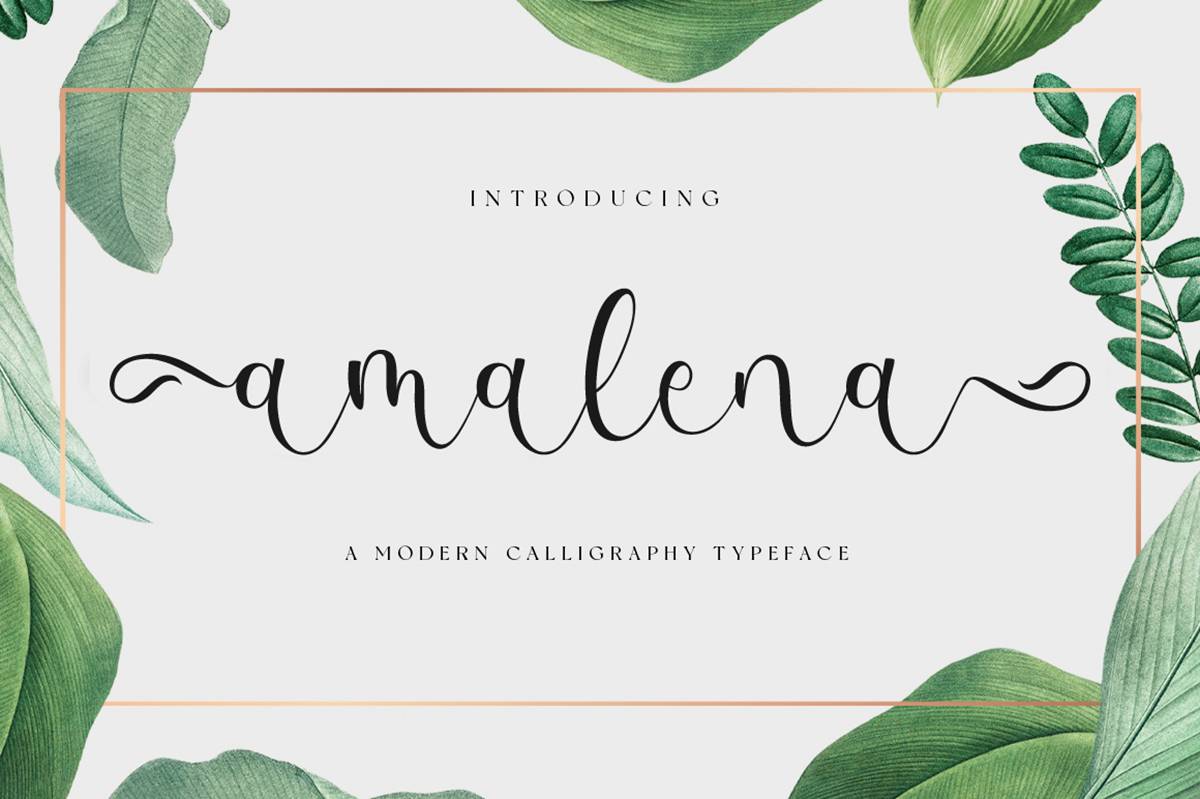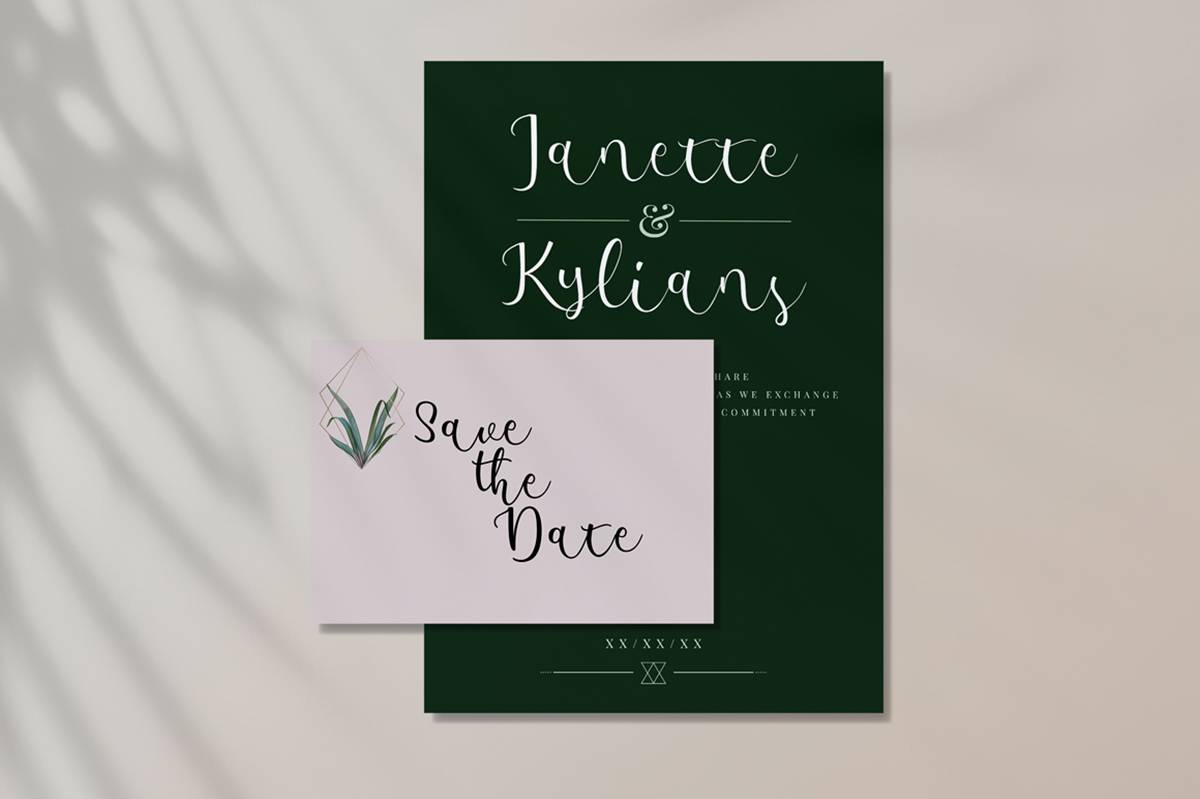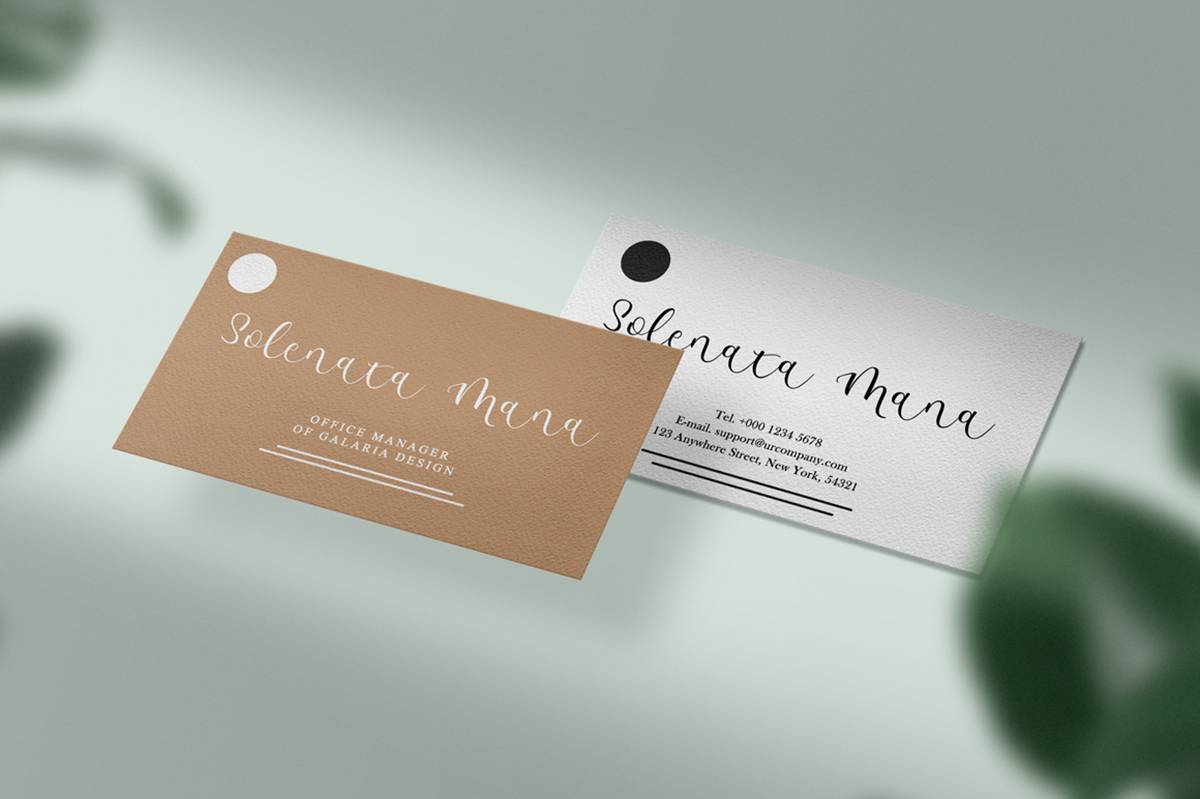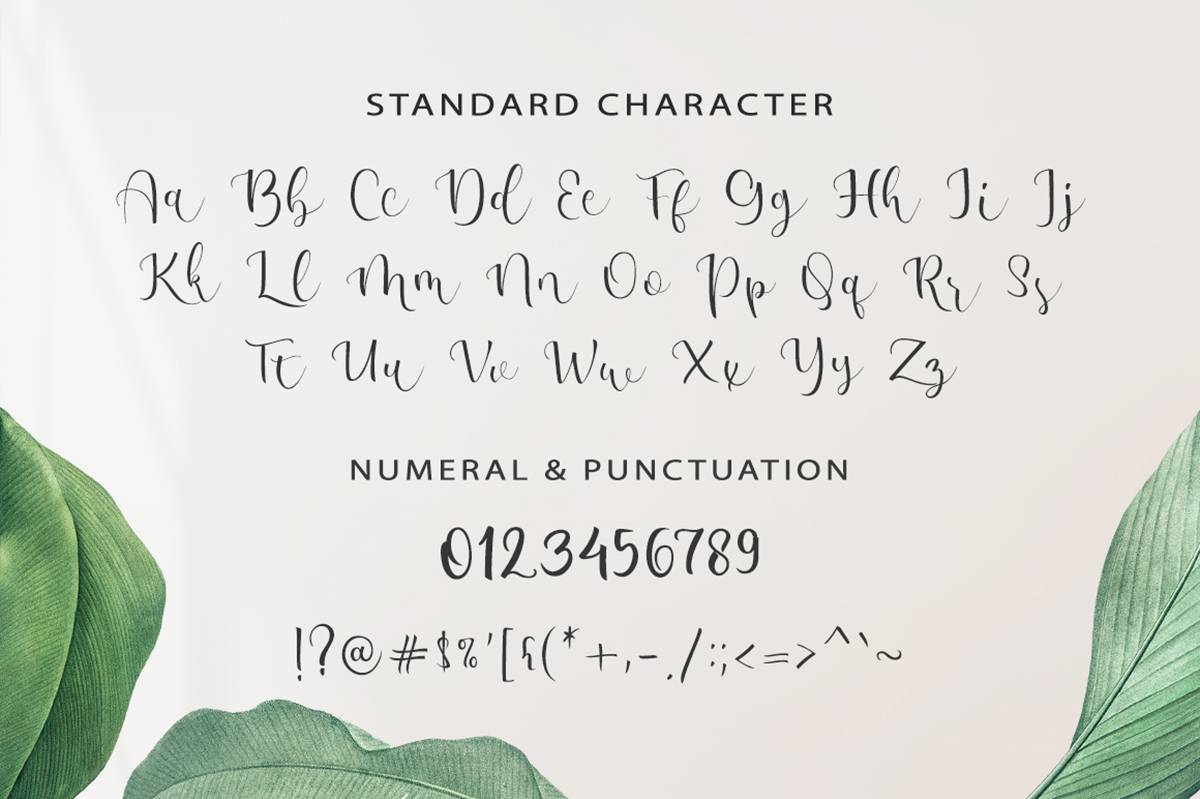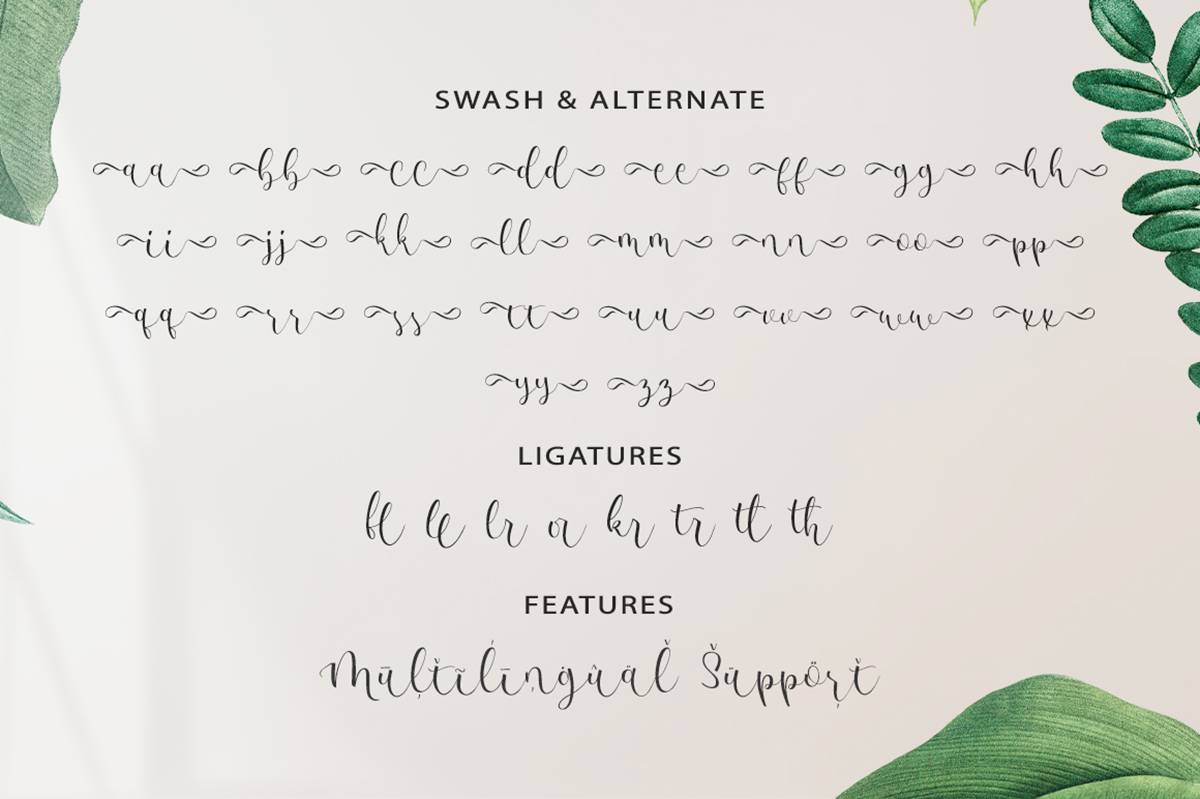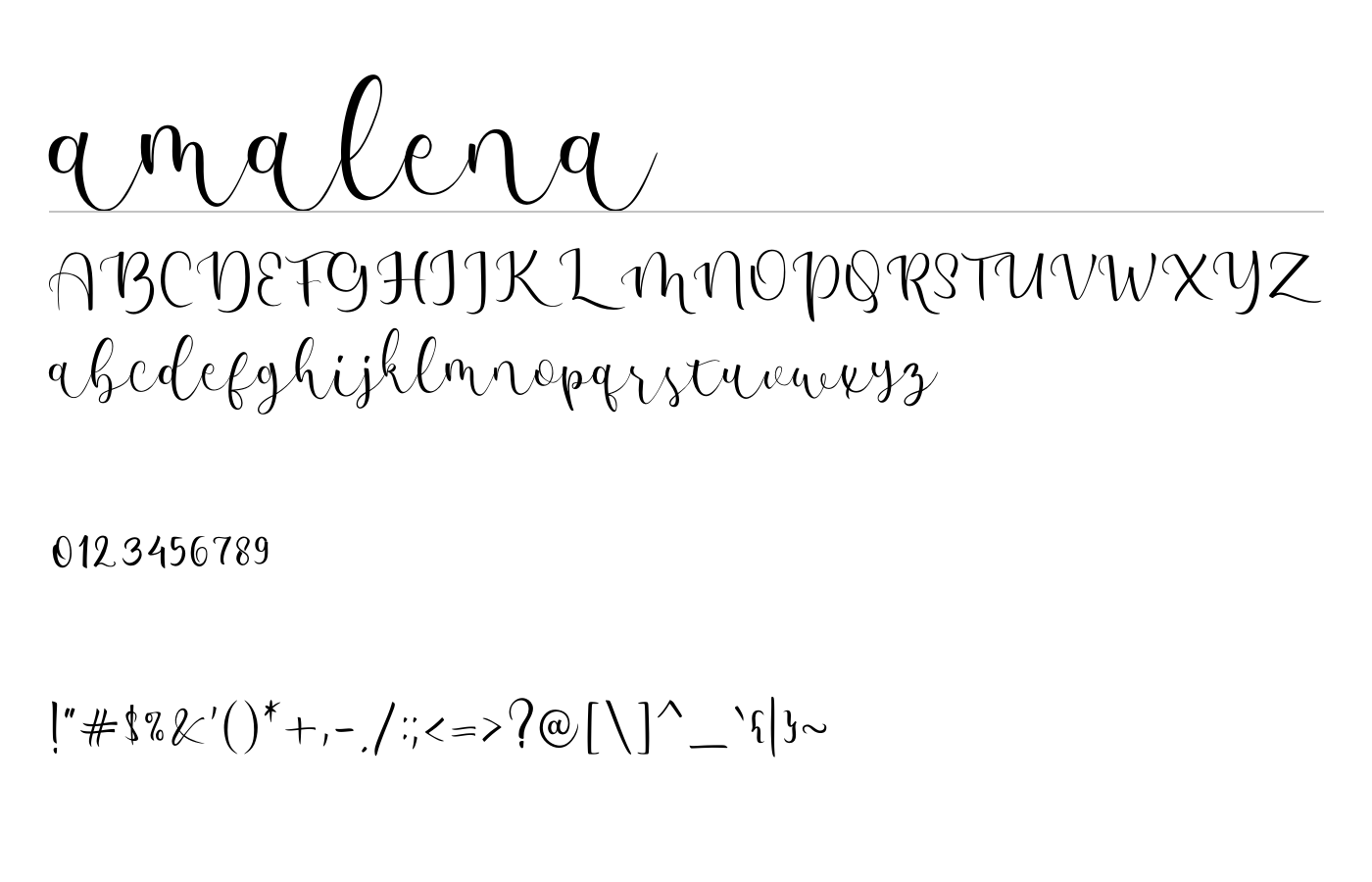
Amalena Script is a delicate and elegant handwritten font that features flowing, slender strokes with a graceful, airy feel. Its tall, looping letterforms and subtle variations in line thickness give it a sophisticated and charming personality, perfect for wedding invitations, luxury branding, and feminine designs. This font shines in headline use and decorative accents where a soft, personal touch is desired.
Amalena Script Font
About Amalena Script Font
| Font family | Amalena Script Font |